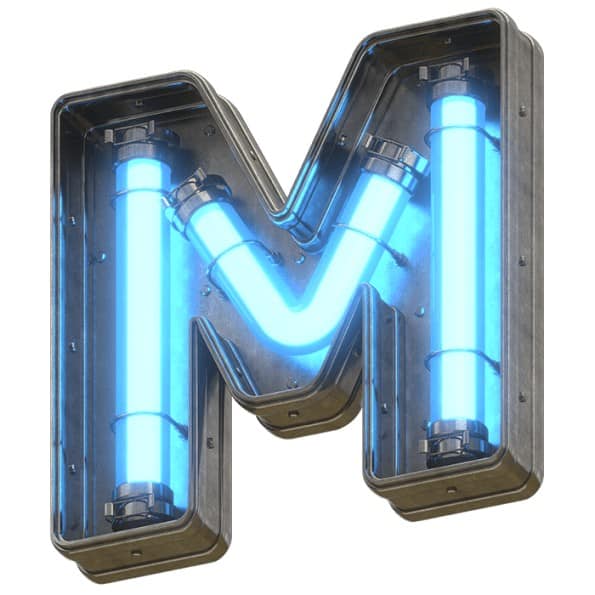
bluelight
Explore the Unique Appeal of Bluelight Font
Bluelight Font, designed by Alex Thompson in 2023, captures a modern aesthetic with its sleek lines and contemporary character forms. This font is perfect for various applications, including web design, branding, and digital marketing materials, making it a versatile choice for both personal and commercial projects.
Key Features and Formats of Bluelight Font
The Inspiration Behind Bluelight Font
Inspired by the harmonious blend of technology and creativity, Bluelight Font was crafted to reflect the modern digital landscape. Alex Thompson focused on legibility and aesthetic appeal, resulting in a font that stands out while remaining easy to read in various contexts.
Versatile Applications for Bluelight Font
Whether you’re designing a website, creating marketing materials, or working on a branding project, Bluelight Font’s unique charm and versatility make it an excellent choice. Its modern look is perfect for businesses that want to convey innovation and style.